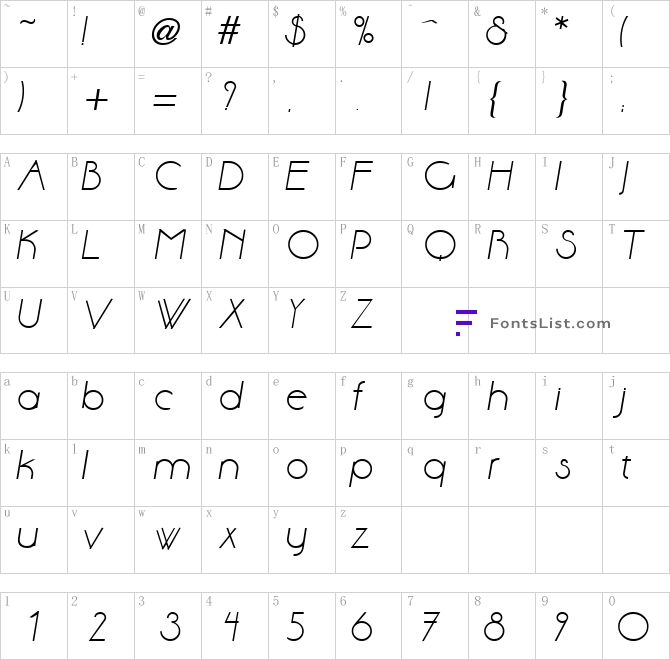
- Font Name:Aase
Aase-Italic.ttf is a very beautiful artistic font, Aase-Italic.ttf is widely used in the design and printing of various books and pictures,Aase-Italic.ttf has a strong visual impact,Aase-Italic.ttf is a commonly used font in newspapers, magazines and books, and is used in posters, e-commerce Poster design, store design, logo design, font design and other fields.Aase-Italic.